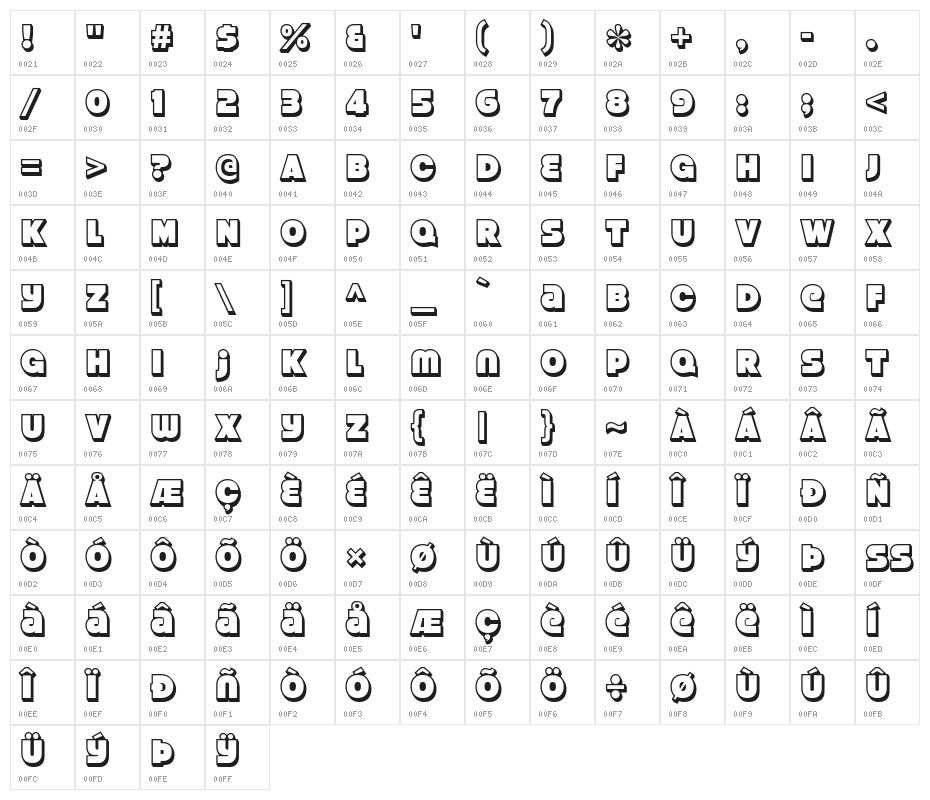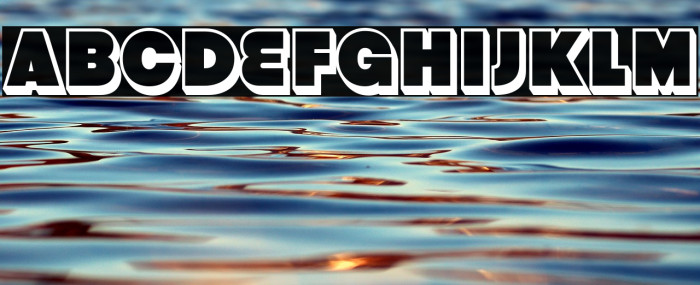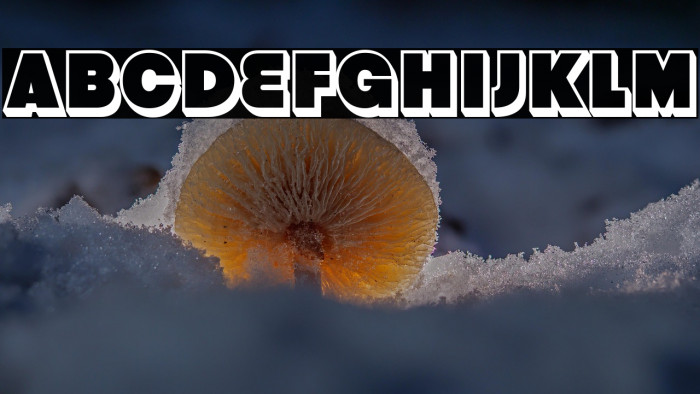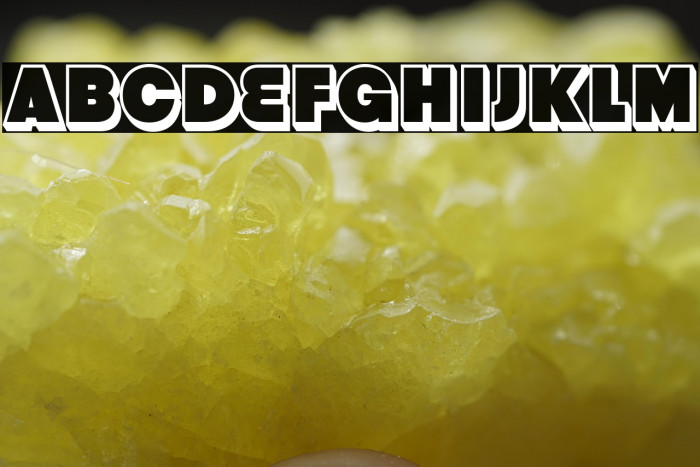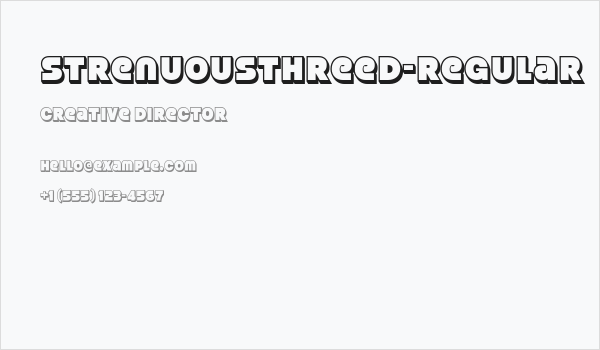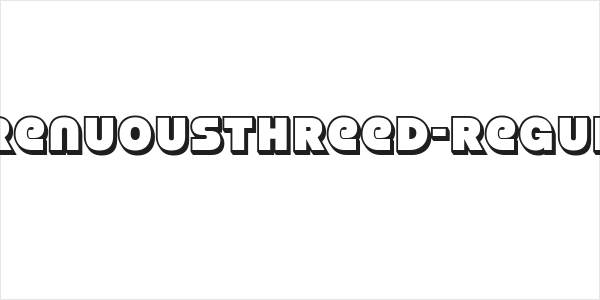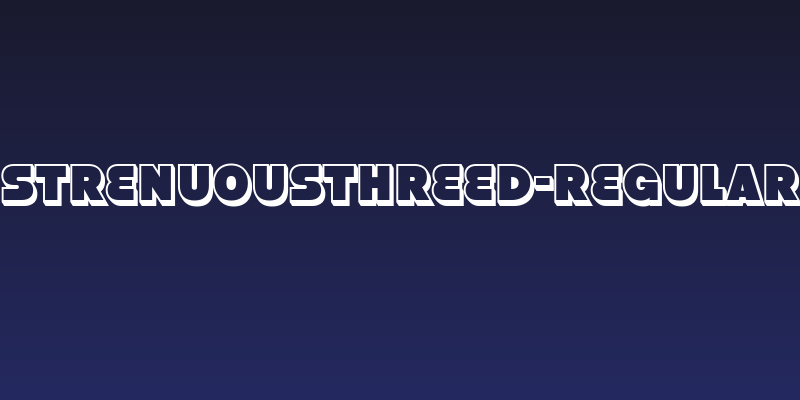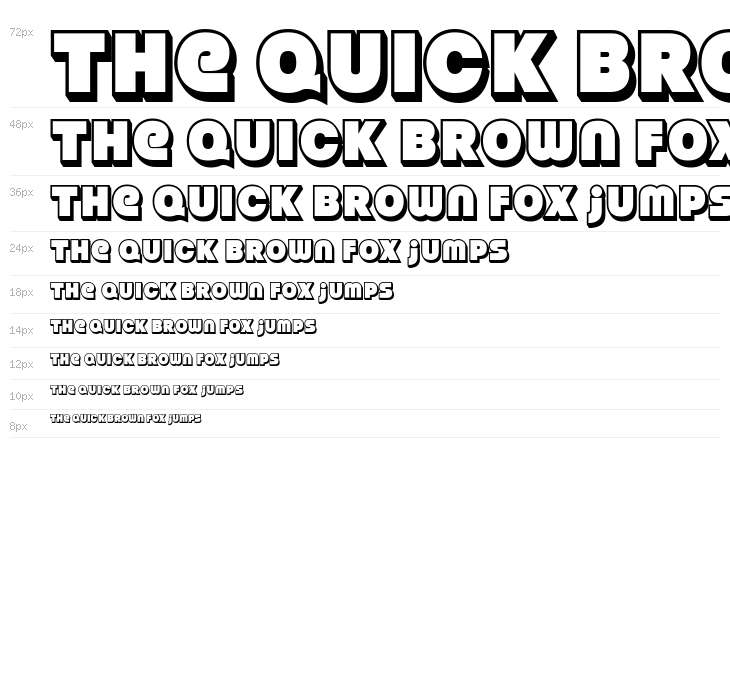
StrenuousThreeD-Regular Font
StrenuousThreeD-Regular Description
This font features a bold, three-dimensional appearance with a strong, impactful presence. Each character is designed with a shadow effect that gives it depth and a sense of movement. The letters are wide and blocky, with a consistent stroke width that adds to the boldness of the design. The overall style is playful yet assertive, making it ideal for attention-grabbing headlines or logos. The font includes both uppercase and lowercase letters, numbers, and a variety of special characters, all maintaining the same 3D effect.
Proposed ProjectsIdeal for use in headlines, posters, logos, and any design requiring a strong visual impact.